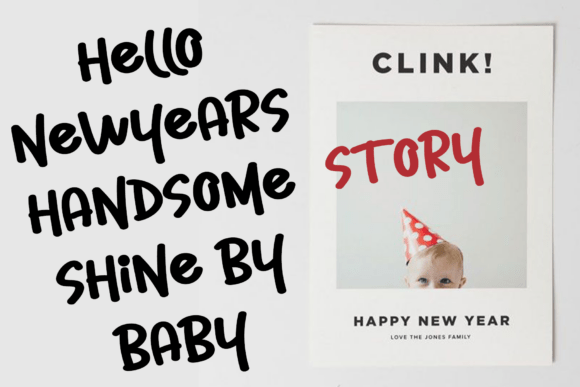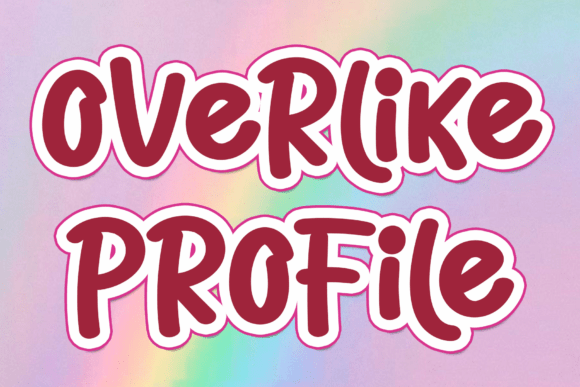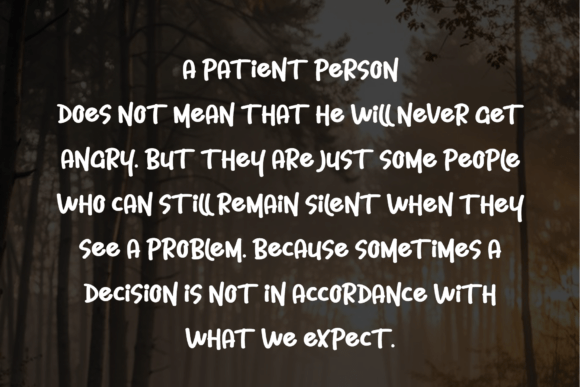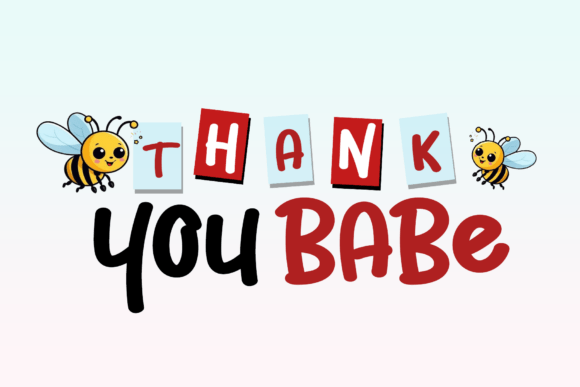
Introduction to Morning Winner Font
Morning Winner is a rhythmic and high-impact display font that embodies an energetic, hand-penned personality.
This modern styling font features thick letterforms rendered with a consistent stroke weight and soft, rounded terminals This font is a standout asset for motivational branding, creative editorial titles, approachable marketing headers, and vibrant digital graphics.
Key Features of Morning Winner Font
Why Choose Morning Winner Font?